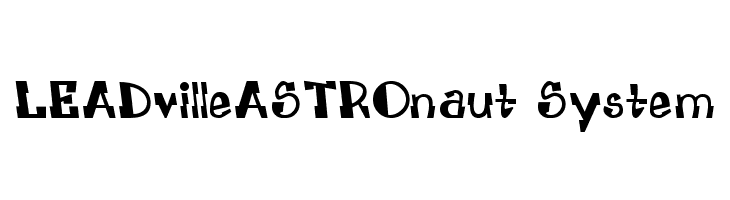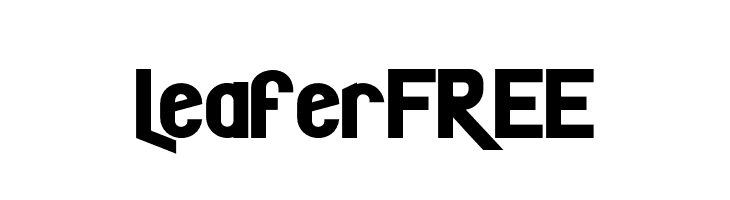
( Fonts by Daniel Gauthier )
A bold, 3D lead type-inspired font with a vintage yet modern appeal.
( Fonts by Glyphobet Font Foundry - Matt Chisholm - http://glyphobet.net/typography/ )
A bold, playful font with unique inline details and a retro flair.
( Fonts by Glyphobet Font Foundry - Matt Chisholm - http://glyphobet.net/typography/ )
A bold, playful font with quirky, dynamic letterforms and exaggerated serifs.
A bold, futuristic font with angular and geometric design elements.
( Fonts by NihStudio )
A decorative, nature-inspired font with characters resembling twigs and leaves.
( Fonts by NihStudio )
A decorative font with characters resembling twigs and leaves, offering a natural and whimsical style.
( Fonts by Brittney Murphy Design )
A decorative font with characters enclosed in leaf outlines, perfect for nature-themed designs.
( Fonts by Brittney Murphy Design )
A decorative font with characters inside leaf silhouettes, combining nature themes with serif elegance.
A playful, organic font with a hand-drawn, leaf-like design.
( Fonts by www.freesvgdesigns.com )
A decorative font with characters encased in ornate leaf patterns.